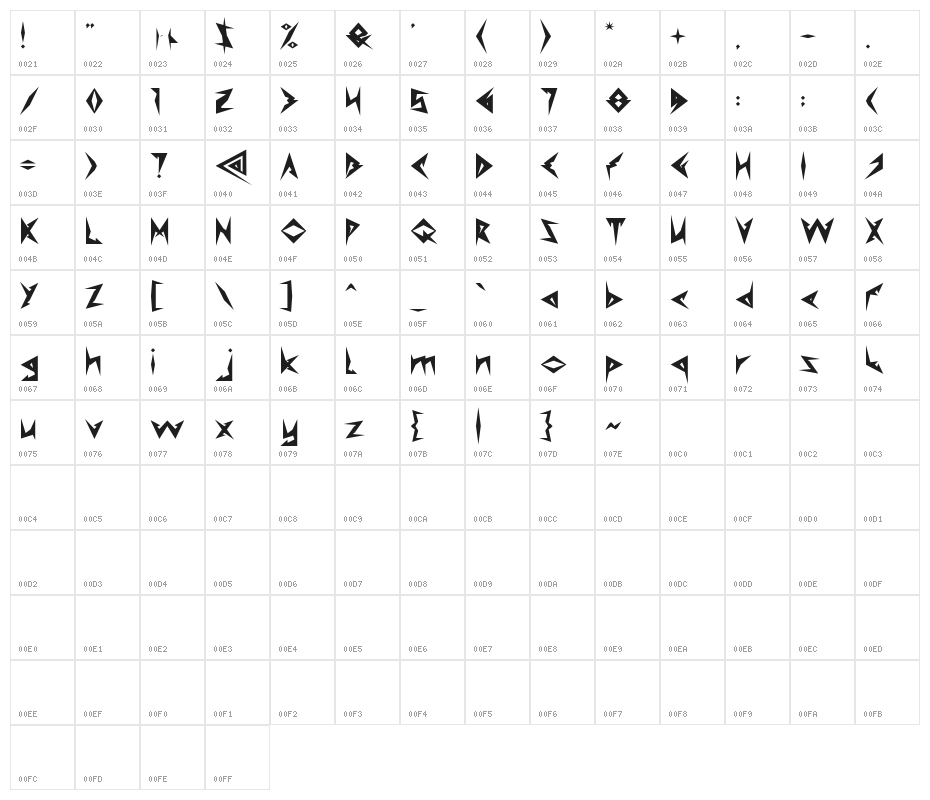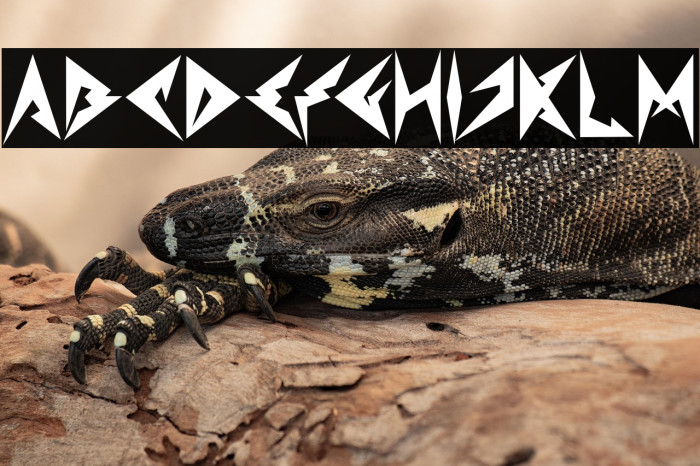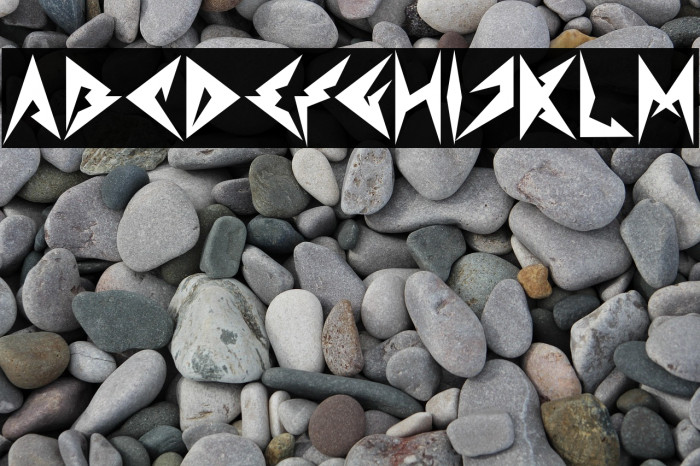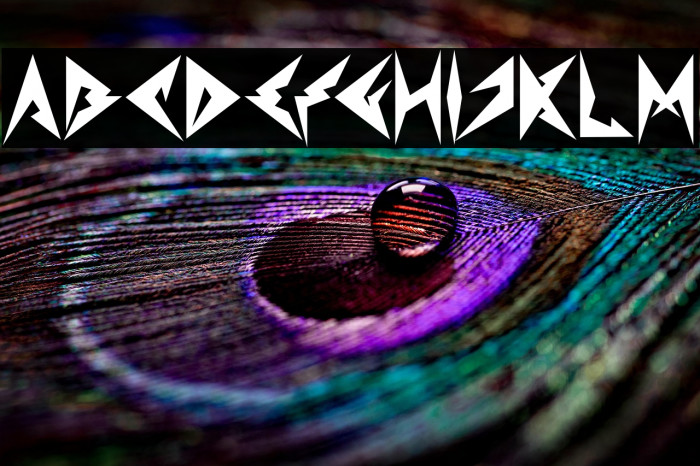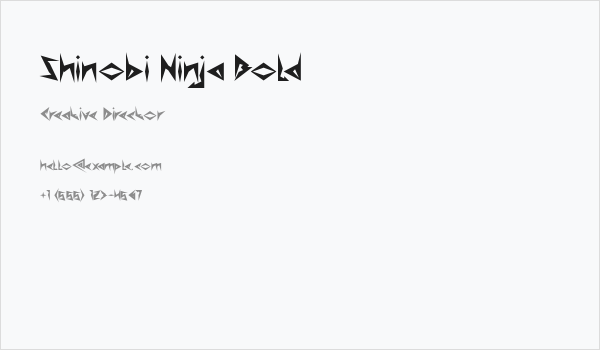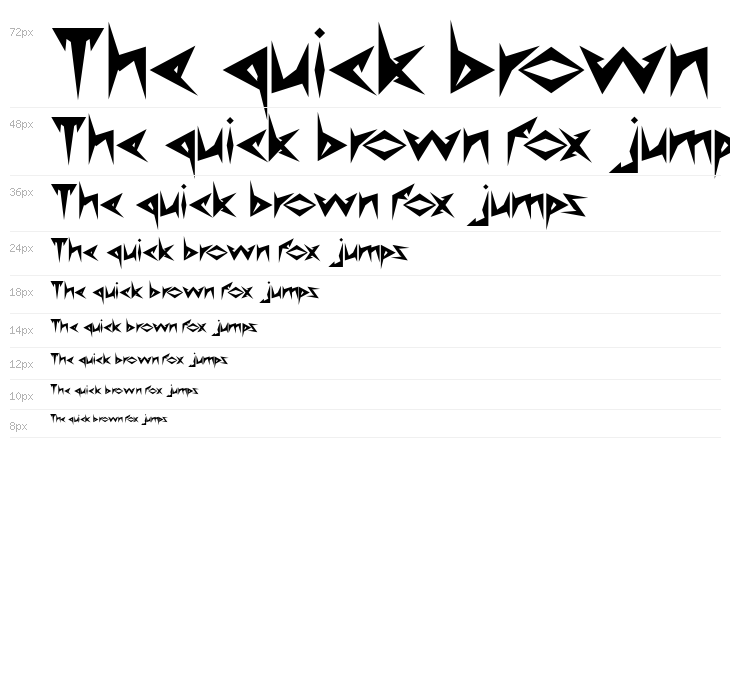
Shinobi Ninja Bold Font
Shinobi Ninja Bold Description
This font features a bold and dynamic design with sharp, angular edges and a distinctly geometric style. The characters are highly stylized, resembling ninja-like shurikens or blades, giving it a fierce and energetic appearance. The uppercase and lowercase letters maintain a consistent theme, with each character exhibiting a unique, edgy flair. Numbers and special characters follow the same aesthetic, ensuring uniformity across all elements. The font's aggressive and modern look makes it stand out, perfect for projects that require a strong visual impact.
| Proposed Projects | Ideal for video game titles, action movie posters, or branding for extreme sports. |